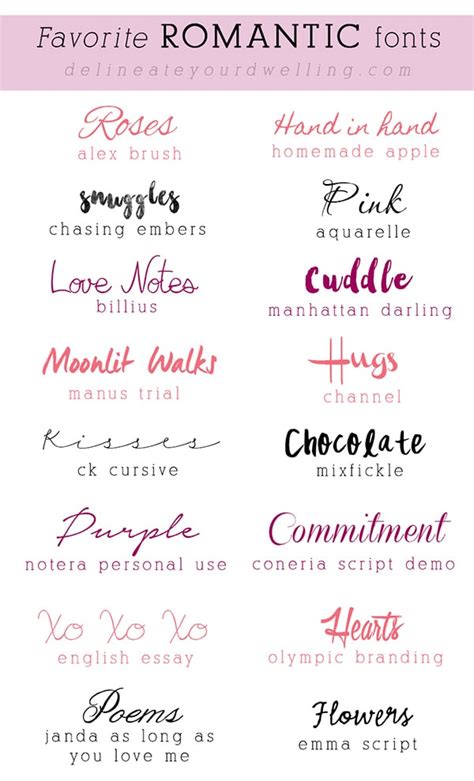
Tattoo Fonts Romantic, A roman numeral tattoo designed with a rose can signify love and romance while its custom font gives it a more special feel. Find and download the right font for your next tattoo.
With the right colors and texture, it could take on a western or farmhouse aesthetic too. Brigitte | veryberry | paduka script | amelia | joleni | lauren | southfield | willow bloom | tanglewoods | february love | romantic some of these fonts are free and some require a commercial license. This free romantic font is can be used for all kinds of messages, and is one of my favorite fonts on the list.
Lettering styles include tribal, traditional sailor, blackletter, fancy, cursive, script, etc. Find and download the right font for your next tattoo. Script font packs can be downloaded for free, or for a fee, from various sites on the internet. Perfect for valentine's day projects, blogging, crafts and more!
Here's another visual direction that has a lot of tattoo possibilities. Grab these amazing fonts to use for cards, letters, and more. Thirsty softby yellow design studio. A selection of 25 handpicked, downloadable, free romantic fonts with examples. They even come with various stylistic alternatives so you can customize them to your personal liking.
With script fonts, you can add any rendition to the letters themselves, as long as it’s still considered legible. Nesia sans is a round print script best used for common messages with no deeper meaning. Font size 24pt 26pt 28pt 32pt 36pt 40pt 44pt 48pt 54pt 60pt 66pt 72pt. 1 to 15 of 502 results. A roman numeral tattoo designed.
Nesia sans is a round print script best used for common messages with no deeper meaning. You can use whole words, long quotes, sayings, poems, or lyrics to feature the written script by itself. Try it on stationery and invitations to make the most of its romantic, italic style. Add angels add tattoos add quotes. Custom handwritten font instead of.
This typeface has numeric glyphs, so you can use it for gothic tattoo number fonts. 1001 free fonts offers the best selection of tattoo fonts for windows and macintosh. No hassle, no fuss, find thousands of high quality free fonts on fontsc. Try it on stationery and invitations to make the most of its romantic, italic style. In this page.
With script fonts, you can add any rendition to the letters themselves, as long as it’s still considered legible. Influenced by tattoo art, inutattoo script is one step removed from germanic blackletter styles, but it still retains some gothic spirit. Brigitte | veryberry | paduka script | amelia | joleni | lauren | southfield | willow bloom | tanglewoods |.
Nesia sans is a round print script best used for common messages with no deeper meaning. A collection of romantic inspired fonts from elegance and enchantment. Fortunately, we have many unique tattoo font styles for men and women, such as calligraphy, cursive, and traditional styles. Find and download the right font for your next tattoo. This is a retro vibe.
237 free tattoo fonts · 1001 fonts This typeface has numeric glyphs, so you can use it for gothic tattoo number fonts. We present our fonts based on the medieval age, prepared for your best text. Here's another visual direction that has a lot of tattoo possibilities. Brigitte | veryberry | paduka script | amelia | joleni | lauren |.